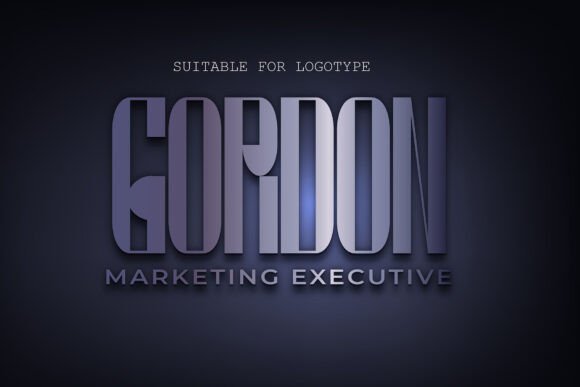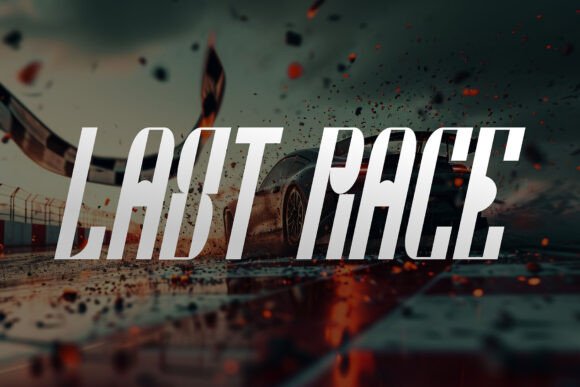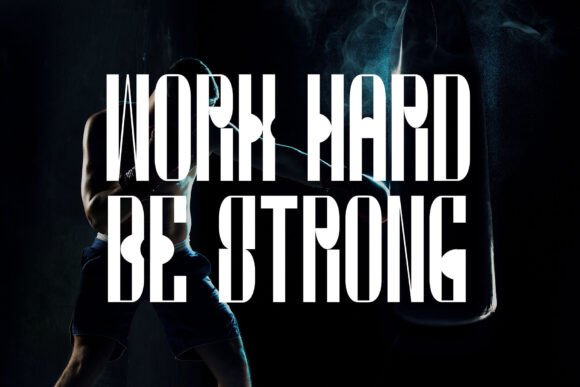
Introduction to Deranios Font
Have you ever stared at a blank design canvas, feeling the pressure to create something truly exceptional? That’s exactly where I was when I first laid eyes on the Deranios Font. As a designer, I know how crucial the right typography can be in elevating a project from ordinary to extraordinary. And let me tell you, Deranios Font is no ordinary font – it’s a game-changer.
This sleek, dynamic display font is designed to capture the essence of speed, accuracy, and finesse, making it perfect for high-energy environments. From sports branding to tech-inspired designs, Deranios Font is the ultimate design resource for any creative project. Its tall, slender characters boast a clean, minimalist aesthetic, and its transparent background makes it easy to integrate into any design.
Key Features of Deranios Font
- The font features a transparent background, making it perfect for use on various design elements and backgrounds.
- The unique, modern design of Deranios Font makes it an excellent choice for creative projects, from logos to brochures and beyond.
Honest Review: Deranios Font
I recently came across the Deranios Font and was excited to give it a try. As a designer, I’m always on the lookout for high-quality design resources to enhance my creative projects. After downloading and experimenting with the font, here are my thoughts.
- The font has a unique and stylish design that’s perfect for modern projects.
- It comes in a range of weights, making it versatile for different applications.
- The transparent background makes it easy to use with different backgrounds and designs.
- The font may not be suitable for more traditional or classic designs.
Overall, I’m impressed with the Deranios Font. It’s a great addition to any designer’s toolkit, especially for modern and creative projects. While it may have some limitations, the quality and style make it a worthwhile download. If you’re looking for a free and high-quality font, the Deranios Font is definitely worth checking out.
For the most out of Deranios Font, use it with a transparent background to create a clean and modern design. Experiment with different font sizes, colors, and styles to create a unique look.
Deranios Font is ideal for creative projects such as logo design, branding, and typography-based art. It can also be used for presentations, documents, and social media graphics.